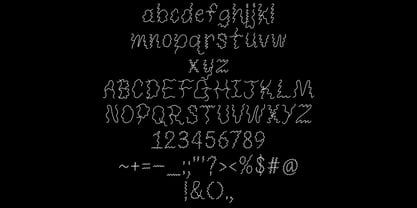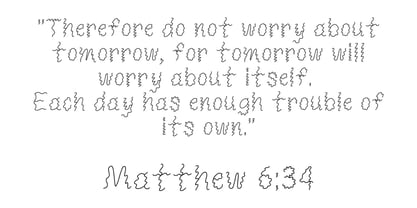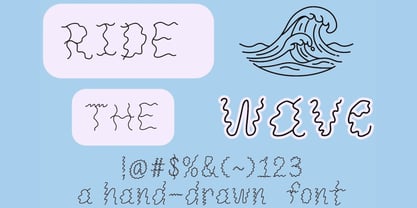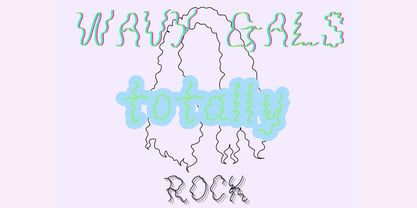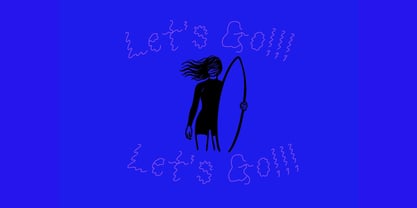
Ride The Wave
by Eryn Rose Design
The Ride The Wave Font Family was designed by Eryn Rose Tomlinson and published by Eryn Rose Design. Ride The Wave contains 1 styles. More about this family
Discover a unique hand-lettered wavy font that embodies a laid-back California surfer vibe or a groovy girl aesthetic. Perfect for adding flair and personality to any project, this font is ideal for T-shirts or product labels, ensuring you catch the attention of your audience. It's a fantastic choice for designers who appreciate the charm of handmade design assets, as the handcrafted quality infuses soul into your creative endeavors. Embrace the feel-good essence of this font and elevate your designs with its distinctive character.
Eryn Rose, a graduate of the Rhode Island School of Design, is a multifaceted artist specializing in illustration, graphic design, and type design. She skillfully blends modern and classic typography, leveraging her fine art and design expertise. Each piece of her typography is unique, ensuring that it cannot be replicated or found elsewhere. Eryn's typography is artfully crafted, infusing warmth into her designs that only a human touch can provide. Her work resonates across various industries, including editorial, tech, and retail, setting her apart in the competitive market with her signature style and design philosophy.